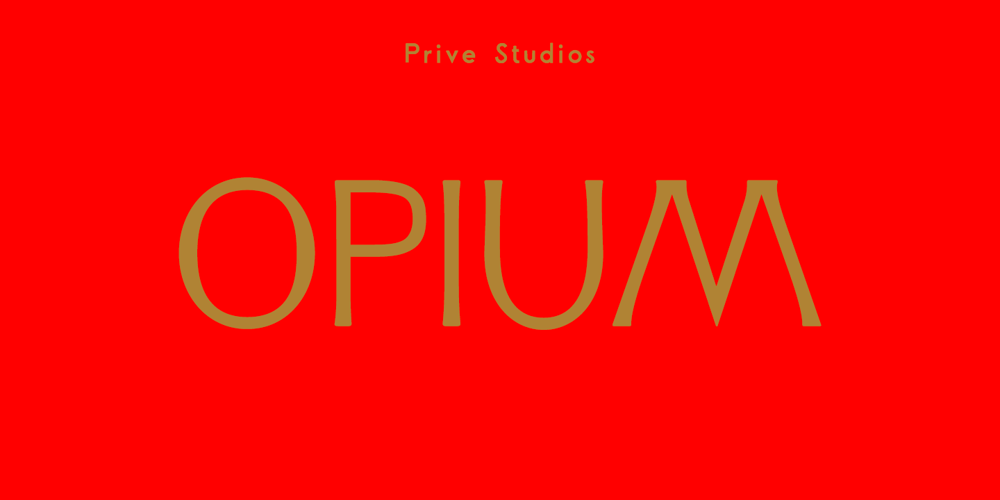
Opium Font Family was designed by Max Prive and published by Max Prive. Opium contains 2 styles and family package options. Opium — a humanist display typeface with futuristic flared lines inspired by the anatomy of opium flowers. Designed using the herbarium specimens of Papaver somniferum.